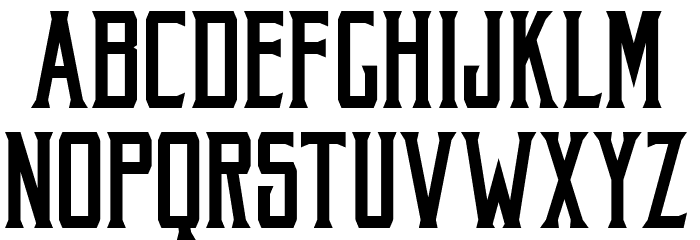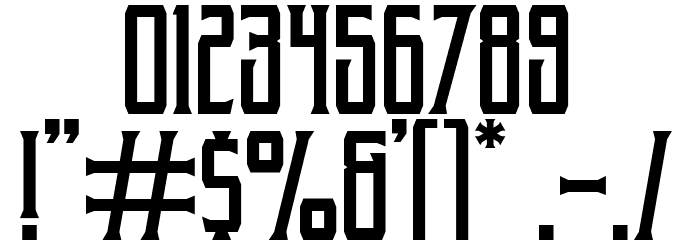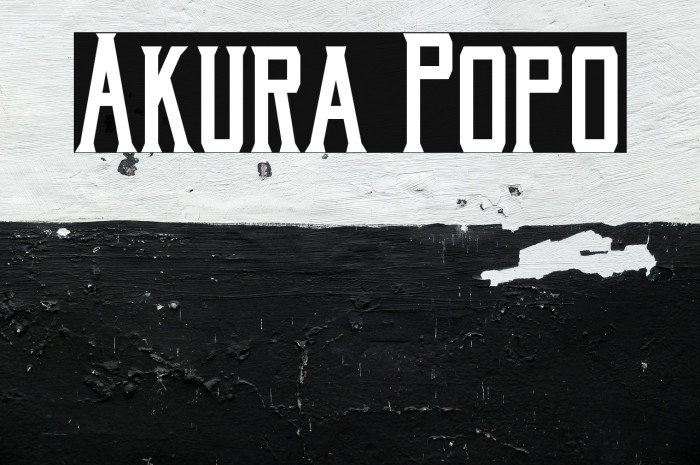
Akura Popo Font
This font features a bold and geometric design with sharp, angular edges that give it a modern and edgy appearance. The uppercase letters are tall and narrow, creating a striking and impactful look. The numbers and special characters maintain the same boldness and angularity, ensuring consistency across all characters. The font's unique style is reminiscent of vintage signage, yet it carries a contemporary twist that makes it suitable for modern applications. Its strong presence and distinctive character make it ideal for projects that require a bold statement.
A bold, geometric font with sharp, angular edges and a modern, edgy style.
- Proposed Projects: Ideal for branding, posters, headlines, and any design that requires a bold and impactful statement.